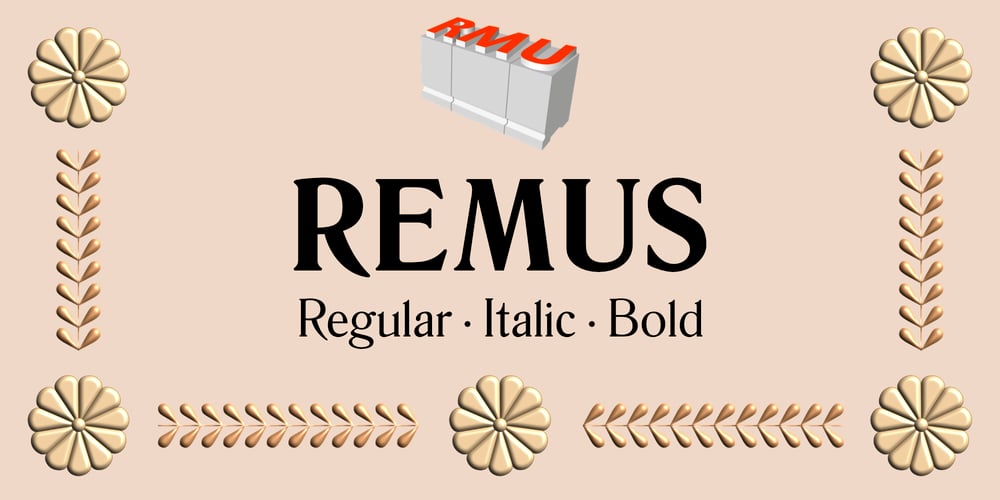
Remus Font Family was designed by Ralph M. Unger and published by RMU. Remus contains 3 styles and family package options. Both fonts of the Remus family are complete redesigns of turn-of-the-century fonts. The regular style is based upon an inhouse design of Schelter & Giesecke in 1889, called Romanisch. This font was adopted by other German foundries and slightly modified and a bold version was added. Due to their proportions, these fonts fit perfectly into narrow columns, and still they are very legible.In January 2023, an Italic style was added. Here too it is recommended to use both ligature features Standard and Discretionary.